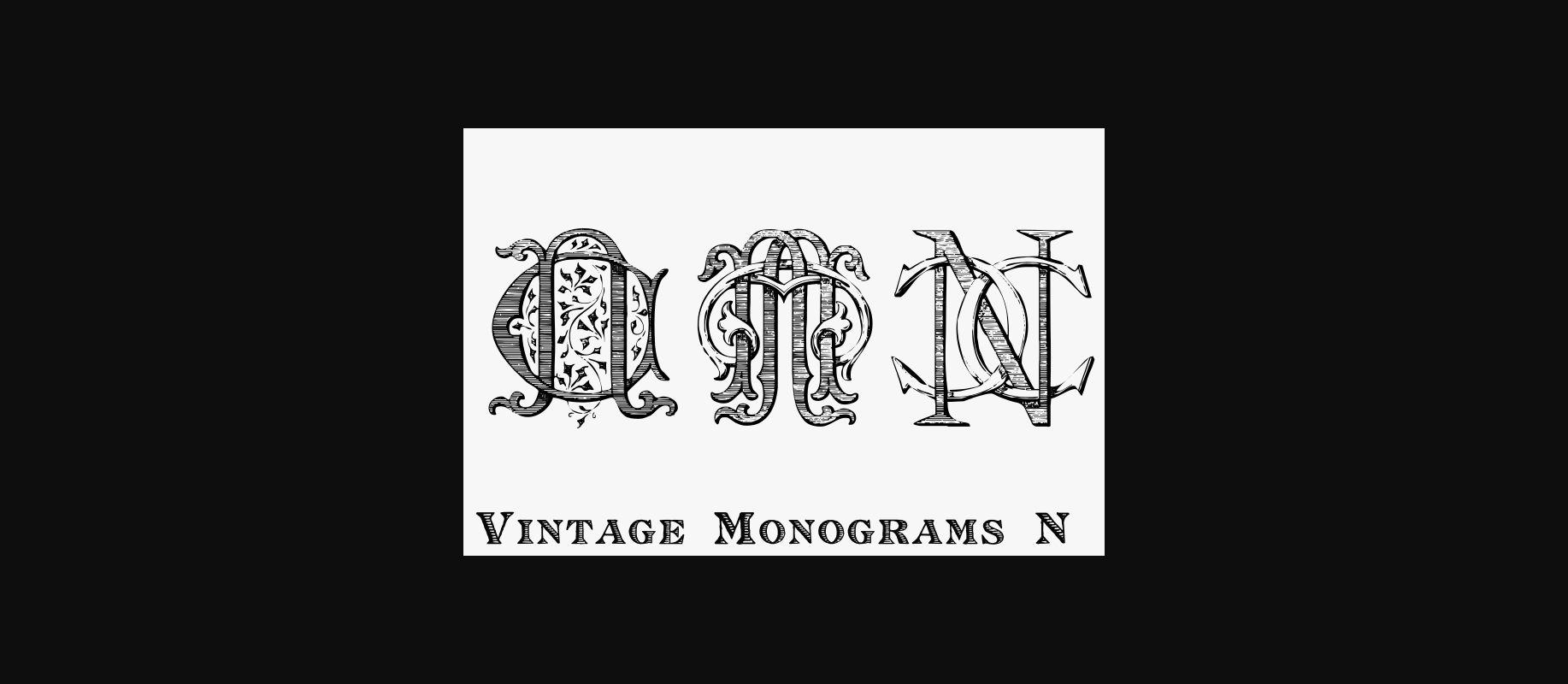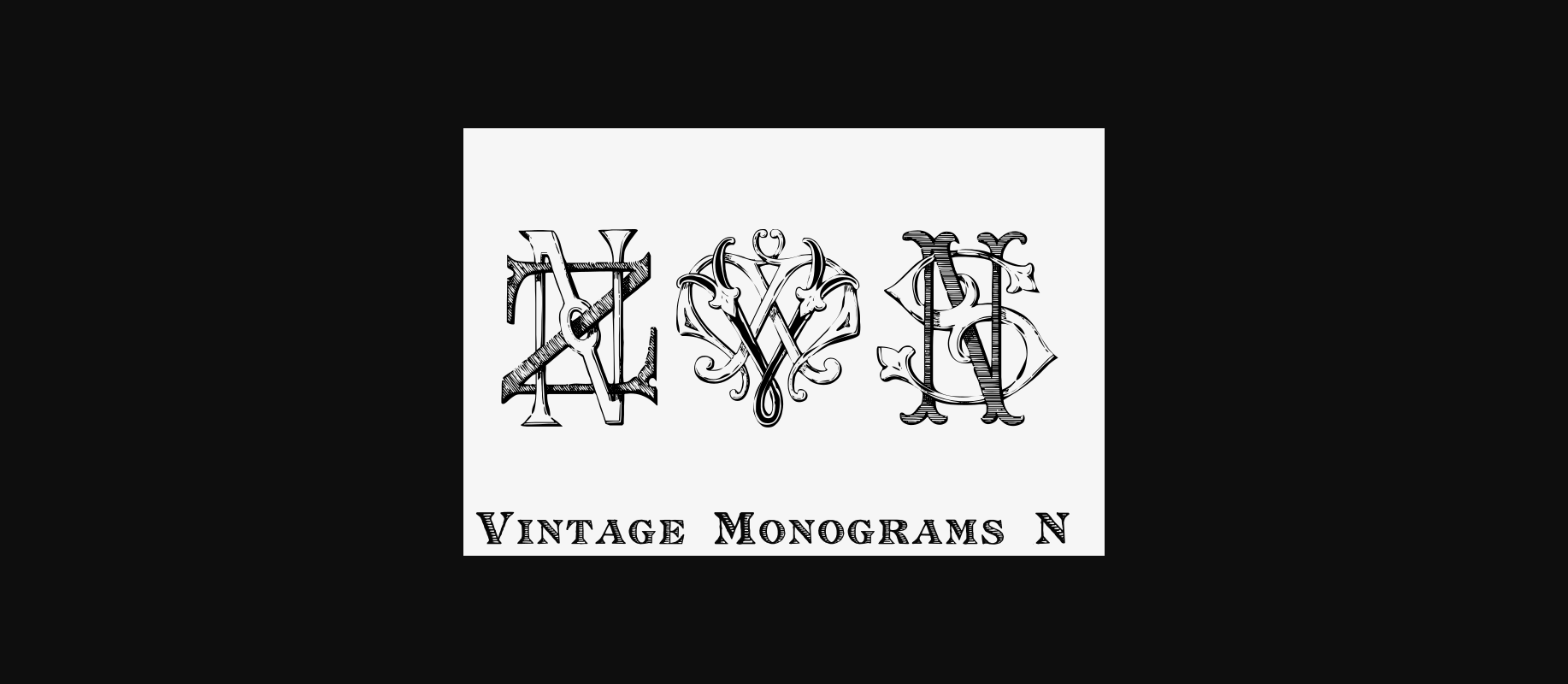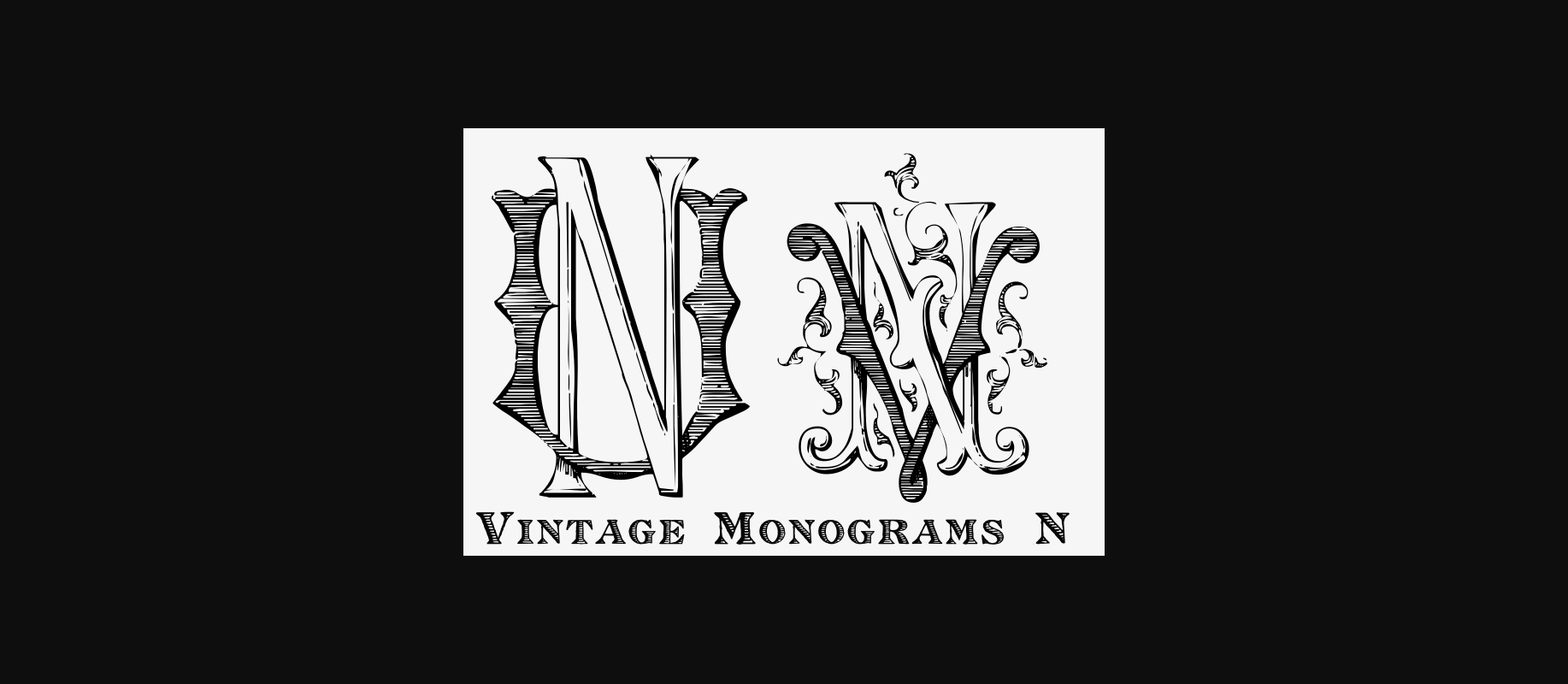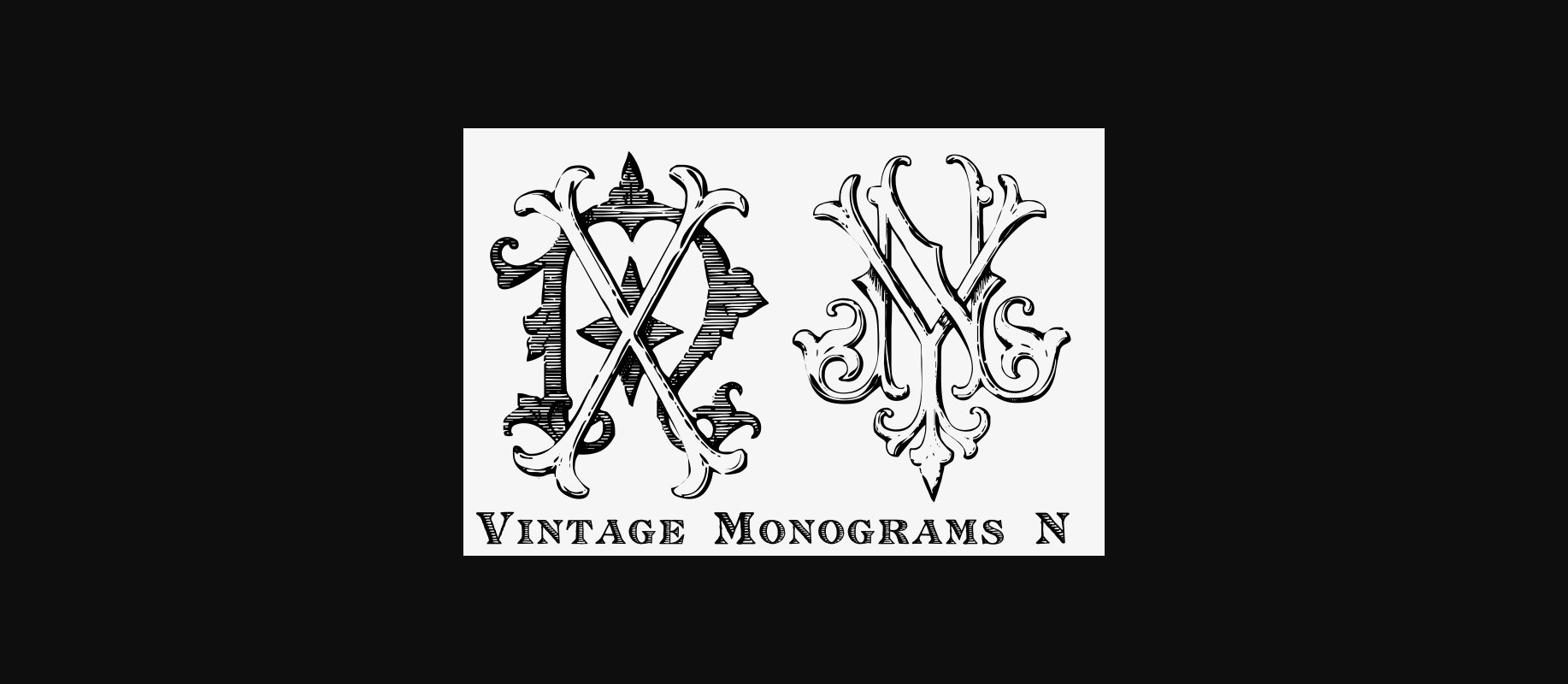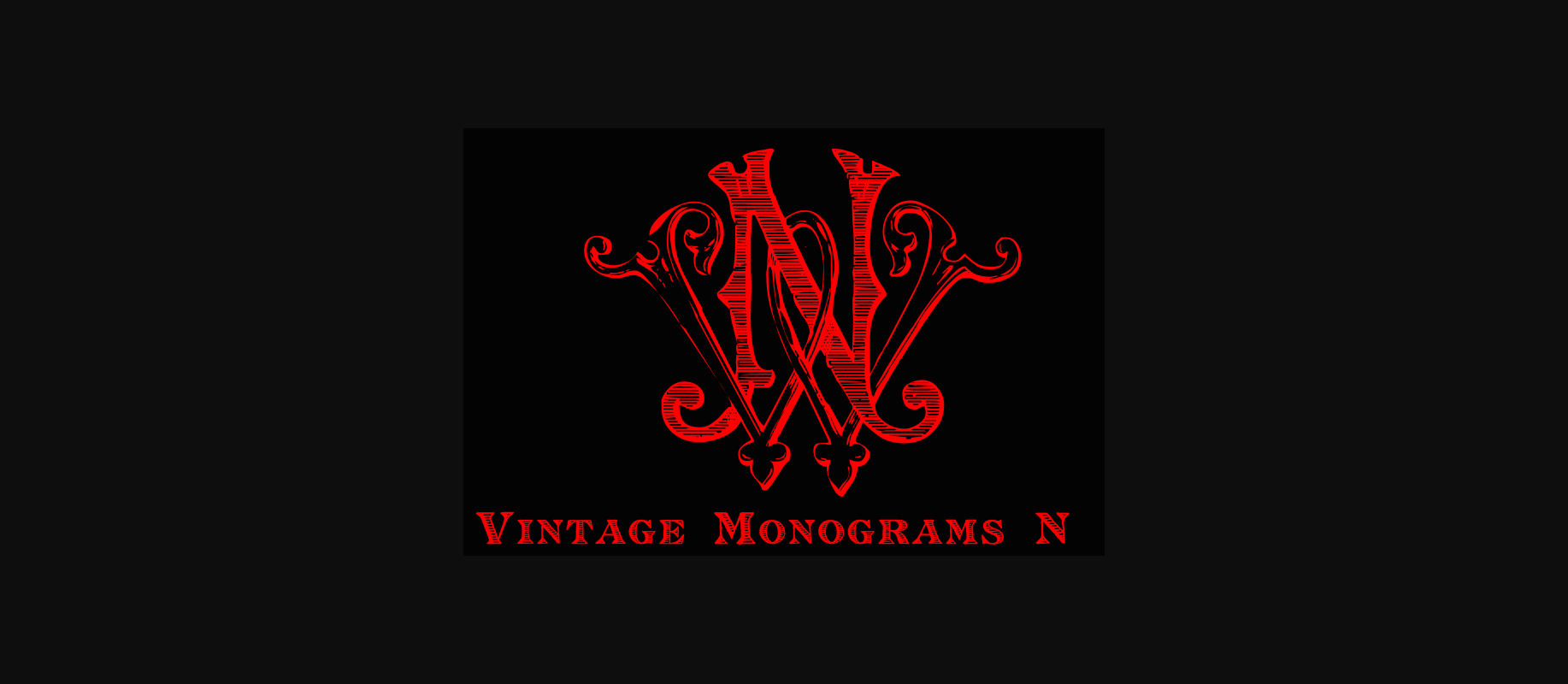
Vintage Monograms N Font
About Vintage Monograms N Font
Ready to use font with dozens of monograms combining letter N with other letters… victorian vintage style